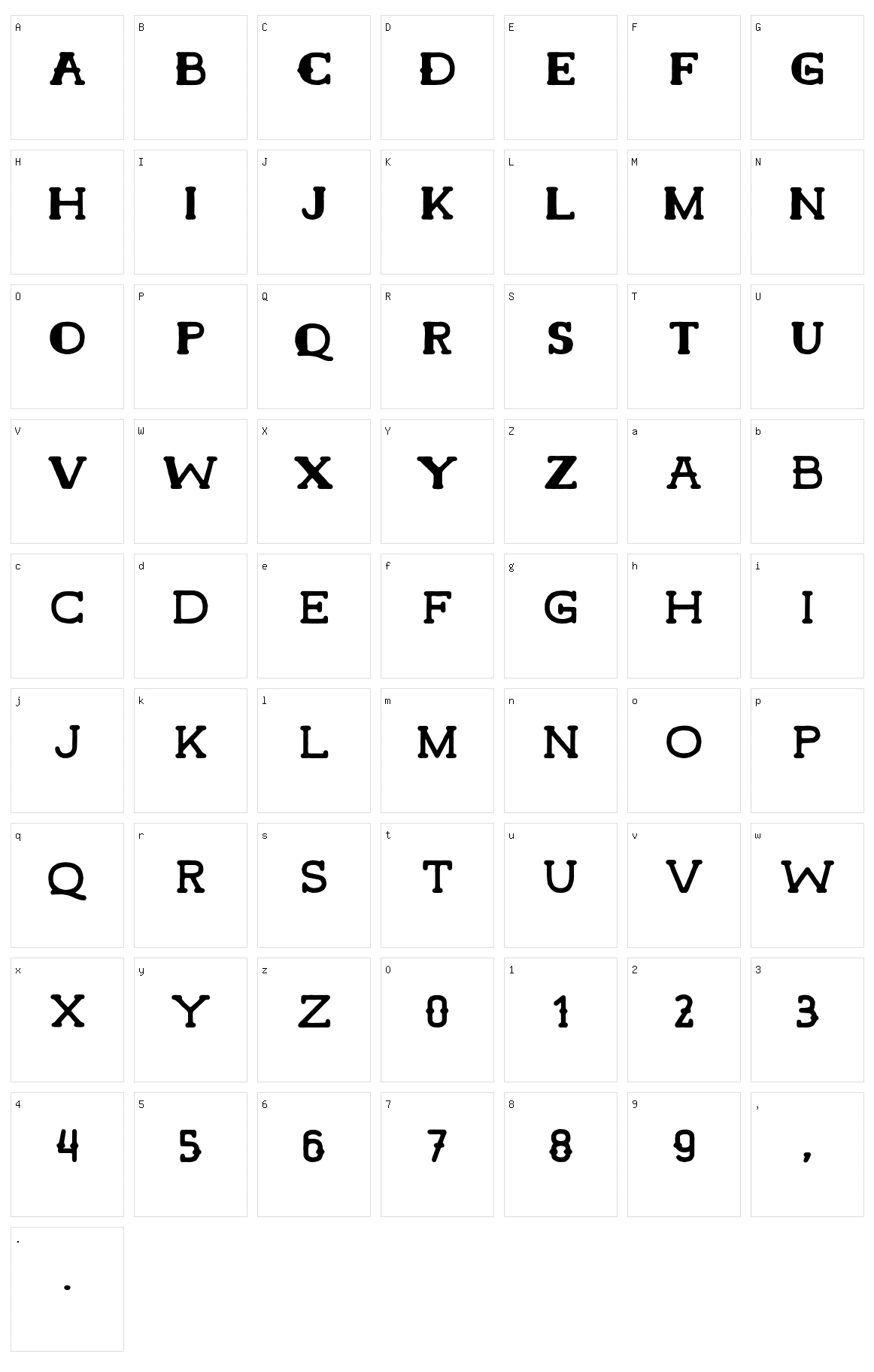
Introducing
Hamer is new old school typeface with vintage look style! Hamer is available 2 different stylistic
Hamer perfect for poster design, book covers, merchandise, fashion campaigns, newsletters, branding, advertising, magazines, greeting cards, album covers, and quote designs and more.